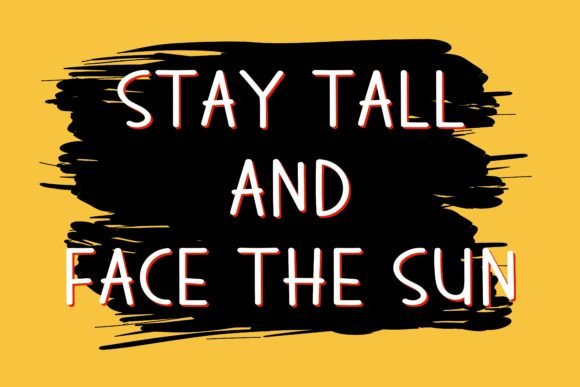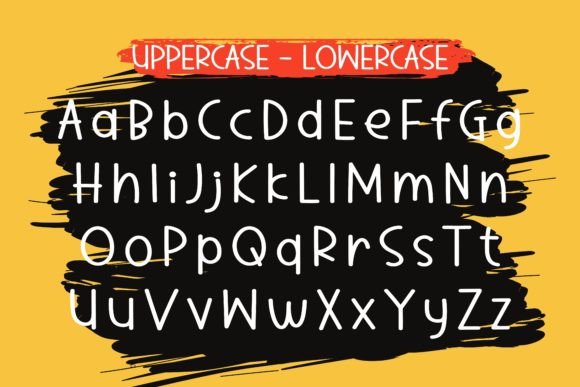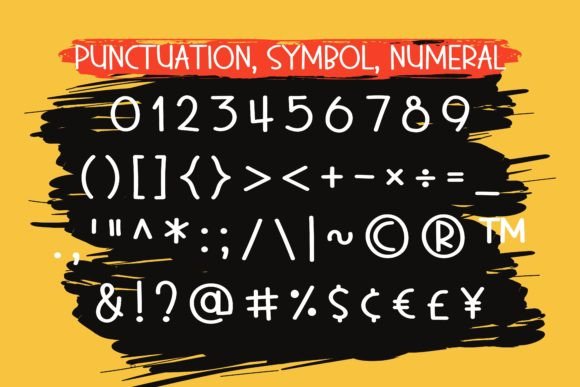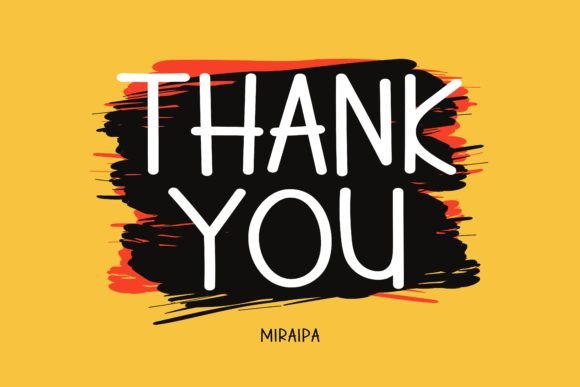
Introduction to Huge Giant Font
Do you remember that moment when you finally found the perfect font for your creative project? The one that makes your design stand out and leaves a lasting impression? For many designers, that moment is a game-changer. It’s the difference between a good design and an amazing one. And for those who haven’t yet discovered their Holy Grail font, we’re excited to introduce you to the Huge Giant Font.
This lovely and cute handwritten sans serif font is a high-quality design resource that has the potential to elevate any creation. With its unique and playful touch, it’s perfect for designers looking to add a personal and creative twist to their work. And the best part? It’s available for free download, making it an accessible and valuable addition to any designer’s library.
Key Features of Huge Giant Font
- High-resolution design with a transparent background, ideal for creative projects and graphic design.
- Large font size, perfect for creating eye-catching headlines and titles in your designs.
- Unique, bold, and creative font style, perfect for adding a touch of personality to your designs.
- High-quality design, suitable for print and digital applications, including business cards, posters, and website headers.
Honest Review: Huge Giant Font
As a designer, I’m always on the lookout for high-quality fonts to elevate my creative projects. Recently, I stumbled upon the Huge Giant Font, and I must say it’s a game-changer. The free download was a huge bonus, and I was excited to see how it would perform in my design work.
One of the things that stands out about the Huge Giant Font is its versatility. It’s perfect for creating eye-catching headlines, and the transparent background makes it easy to layer with other design elements. I also appreciate the variety of weights and styles available, which gives me the flexibility to customize my design to suit my needs.
Here are some of the things that work well about the Huge Giant Font:
- Variety of weights and styles available
That being said, there are a few limitations to keep in mind:
- Some of the styles may not be as consistent across different font sizes
- The font may not be suitable for small-scale text
Overall, I’m impressed with the Huge Giant Font and would highly recommend it to other designers. It’s a valuable addition to any design toolkit, and I’m excited to see how it will continue to evolve and improve.
The Huge Giant Font is a high-quality design resource perfect for creative projects that require a bold and eye-catching text element. With a transparent background, this font can be easily customized to fit any design style.
Tips for Getting the Most Out of Huge Giant Font
To get the most out of the Huge Giant Font, use it in conjunction with other bold and eye-catching design elements. Experiment with different font sizes and colors to create a unique and attention-grabbing design.
Common Use Cases for Huge Giant Font
The Huge Giant Font is perfect for use in headings, titles, and other text elements where a bold and eye-catching font is required. It’s also great for use in social media graphics, posters, and other visual marketing materials.
Use Font Awesome Icons when you need to add visual interest to your design without using a huge giant font. It’s a great alternative to Huge Giant Font as it provides a more subtle and professional look.
Comparison to Huge Giant Font: Font Awesome Icons offers a more nuanced approach to design, whereas Huge Giant Font can be overwhelming. Font Awesome Icons is a better choice for projects where you want to add depth without overpowering the content.
Q: Does Huge Giant Font have a transparent background?
Yes, the Huge Giant Font has a transparent background, making it easy to layer over other design elements or backgrounds. This feature is particularly useful when using the font as a design resource in creative projects, such as logos, icons, or graphics.